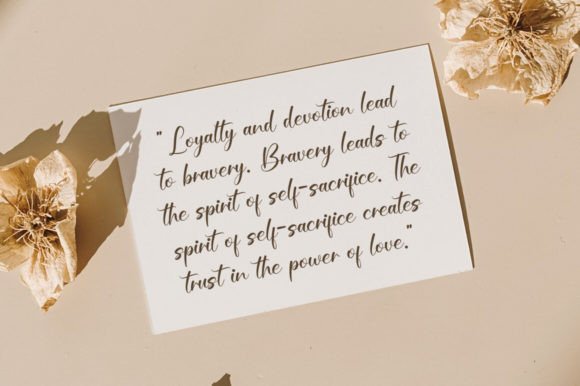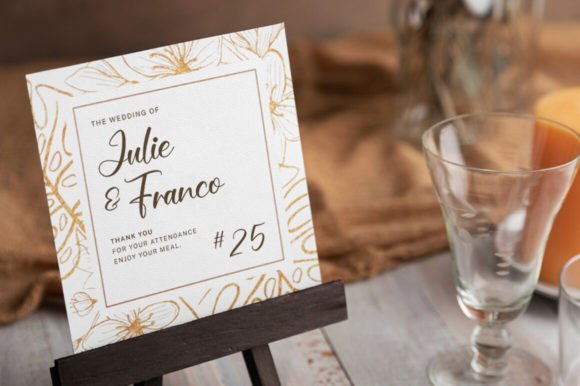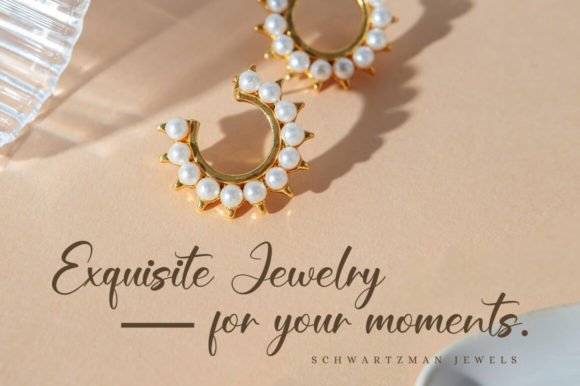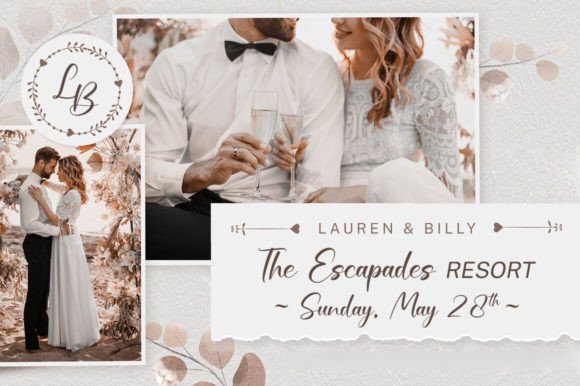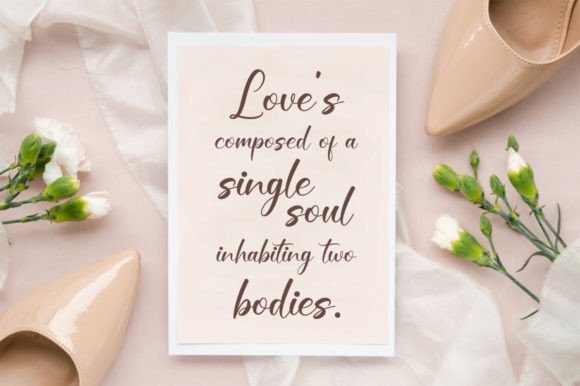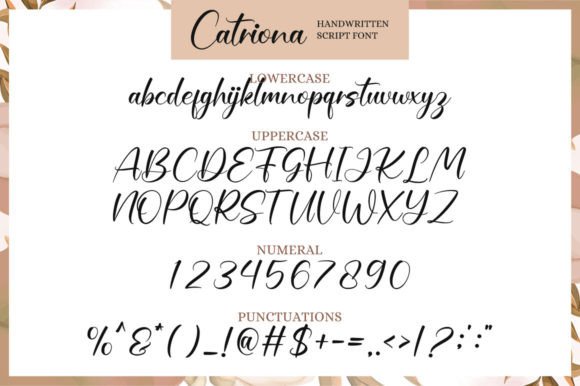
Discover the Timeless Charm of Handwritten Fonts
As designers, we’ve all been there – staring at a blank page, waiting for the perfect font to bring our creative vision to life. It’s that moment of inspiration when everything clicks, and the right font appears. For me, it was when I stumbled upon the Catriona Font, a lovely and timeless handwritten font that effortlessly elevates any design.
Designed to capture the essence of handwritten letters, Catriona Font is a versatile tool for creating eye-catching logos, branding, and quotes. Its smooth, flowing lines and subtle imperfections make it an ideal choice for designers seeking a unique and authentic touch. Whether you’re working on a personal project or a client’s branding, Catriona Font is a valuable asset that can help you stand out from the crowd.
Catriona Font Key Features
- Font Family: Catriona
- Unique Characteristics: Elegant, cursive script with a touch of classic charm, suitable for invitations, wedding stationery, and other formal events.
Designer Review: Catriona Font
Overall, I’m impressed with Catriona Font, but like any typeface, it has its strengths and weaknesses.
- Elegant and refined appearance: Catriona Font has a sophisticated, classic feel that’s perfect for formal documents and high-end branding.
- High readability: The font’s x-height and letterform design make it easy to read, even at smaller sizes.
- Versatility: Catriona Font works well in a range of contexts, from body text to headings and titles.
- Limited bold weight: While the regular weight is beautiful, the bold weight feels a bit forced and less refined.
- Not ideal for body text at smaller sizes: While Catriona Font is highly readable, it can start to feel a bit too elegant and difficult to read at very small sizes.
Overall, I’d say Catriona Font is a solid choice for any project where you want a high-end, elegant feel. With a bit of care in choosing the right weight and size, you can create a beautiful and effective design.
Practical Application Guide for Catriona Font
The Catriona font is particularly well-suited for:
– Creating professional-looking titles and headings
– Designing book covers and other print materials
– Creating presentations and slideshows
Tips for Getting the Most Out of Catriona Font
– Experiment with different font sizes and styles to create visually appealing combinations
– Use the Catriona font for titles and headings to create a clear hierarchy of information
– Combine the Catriona font with other fonts to create a unique and interesting design
Alternatives to Catriona Font for Designers
1. Lato
Lato is a modern sans-serif font with a clean and minimalist design. It is perfect for use in digital products, websites, and applications where a professional and elegant look is desired. Compared to Catriona Font, Lato has a more geometric and technical feel, making it ideal for tech-related projects.
Open Sans is a highly legible sans-serif font that is designed to work well in a variety of environments. It is great for use in body text, headings, and titles where a clear and readable font is required. Compared to Catriona Font, Open Sans has a more neutral and understated design, making it suitable for a wide range of projects.
Merriweather is a classic serif font with a traditional and elegant design. It is perfect for use in print materials, such as books, magazines, and brochures, where a sophisticated and refined look is desired. Compared to Catriona Font, Merriweather has a more formal and traditional feel, making it ideal for projects that require a sense of history and heritage.
Q: What is the recommended font size and line height for optimal readability with Catriona?
For optimal readability, we recommend using Catriona with a font size between 12 and 14 points, and a line height of at least 1.5 times the font size. This will ensure that the text is clear and easy to read, even in longer passages.